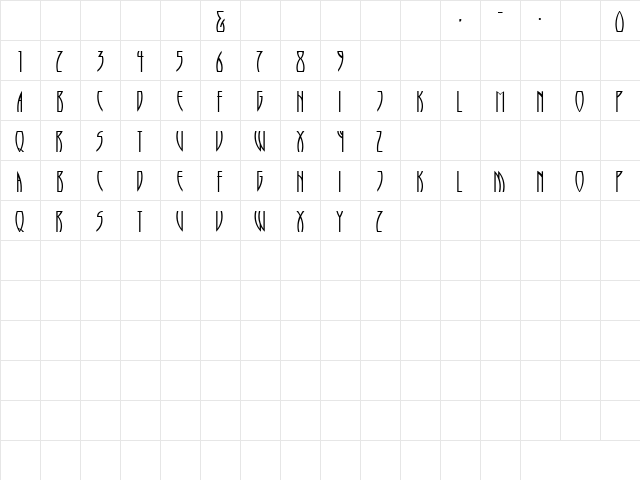
RunyTunes Regular Free Font
RunyTunes Regular
Design Context for RunyTunes
RunyTunes is a composed and adaptable typeface that performs quietly and consistently across a wide range of design contexts.